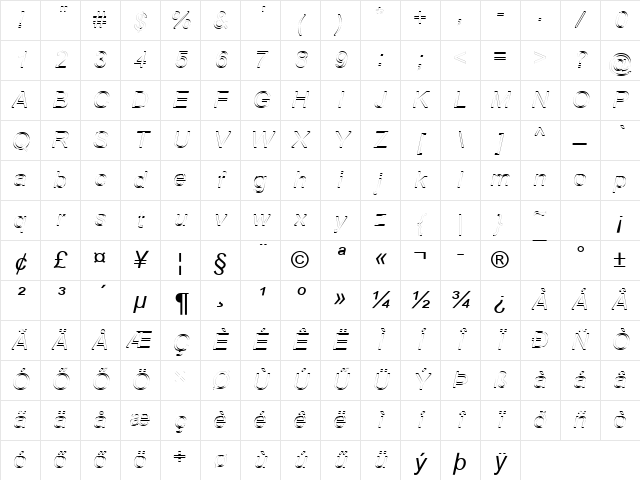
Arial Outline HU Italic
Complete Arial Outline HU Italic glyph index. Displaying only characters natively supported by Arial Outline HU Italic font.
Design Context for Arial Outline HU
Arial Outline HU is built around its visual character rather than neutral utility - its distinctive forms are designed to make an impression at display sizes. The slanted form adds forward momentum and visual energy.
Font Pairing: Pair with a clean neutral sans-serif for body copy to let Arial Outline HU's character lead without overwhelming the composition.
Pro Tip: Use Arial Outline HU exclusively at display sizes - it was designed to be seen, not read at length. Let a neutral companion handle body copy.